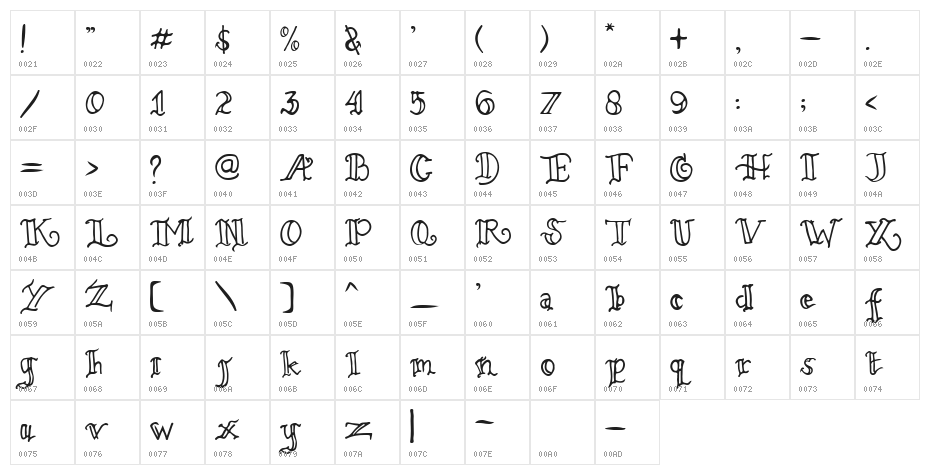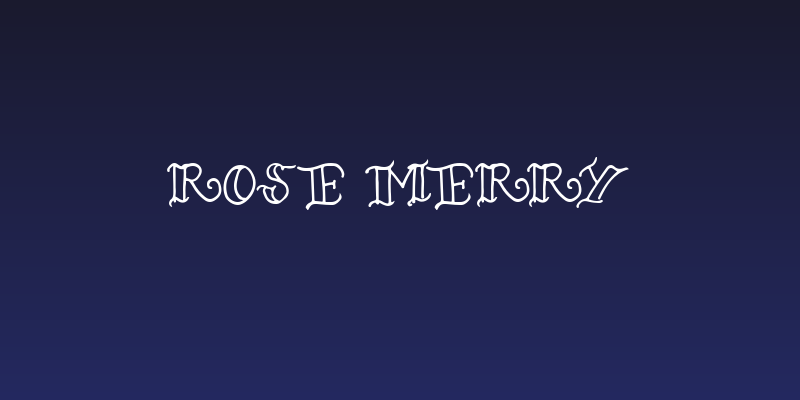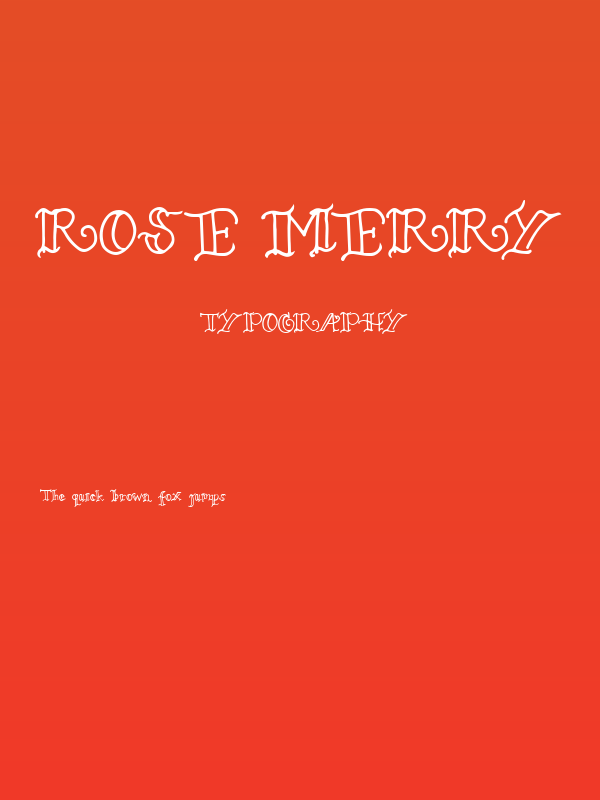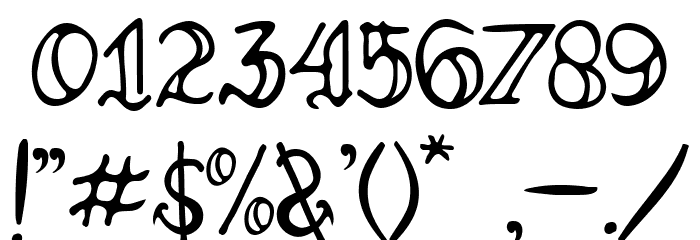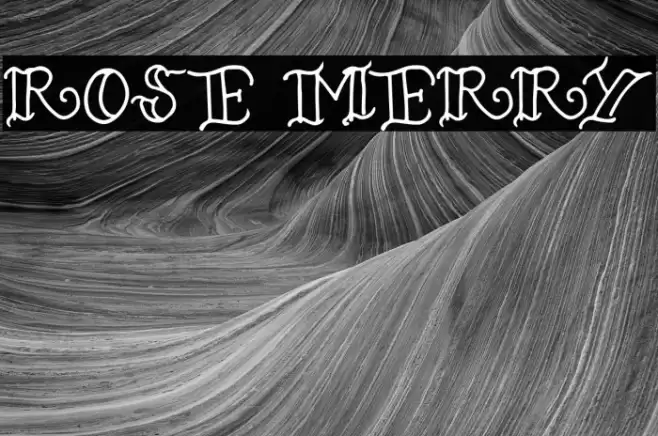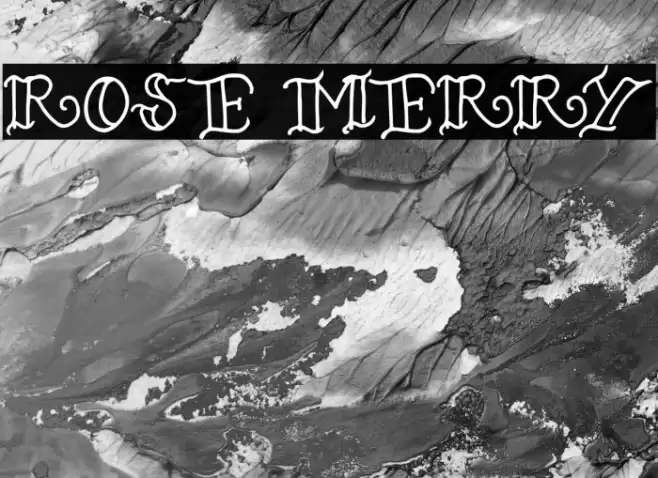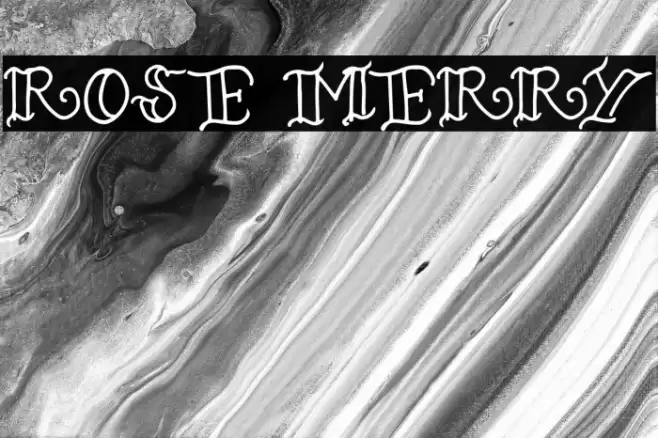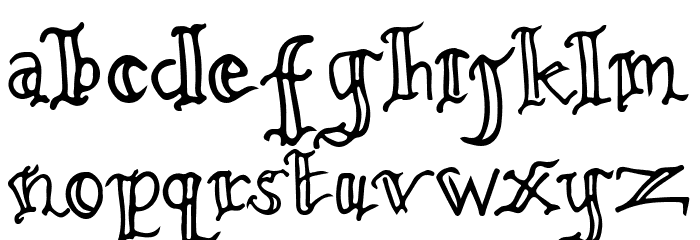
ROSE MERRY Font
ROSE MERRY Description
This font features a unique and decorative style with a whimsical flair. The characters are characterized by their ornate and curvy design, giving them a playful yet elegant appearance. The uppercase letters exhibit a distinct flourish, while the lowercase letters maintain a consistent decorative theme. Numbers and special characters follow the same artistic style, making the font cohesive and visually appealing. The overall design suggests a hand-drawn quality, adding a personal touch to any project.
| Use Case | Logos, Headlines, Artistic projects |
| Proposed Projects | Ideal for invitations, greeting cards, branding, and artistic projects that require a touch of elegance and playfulness. |